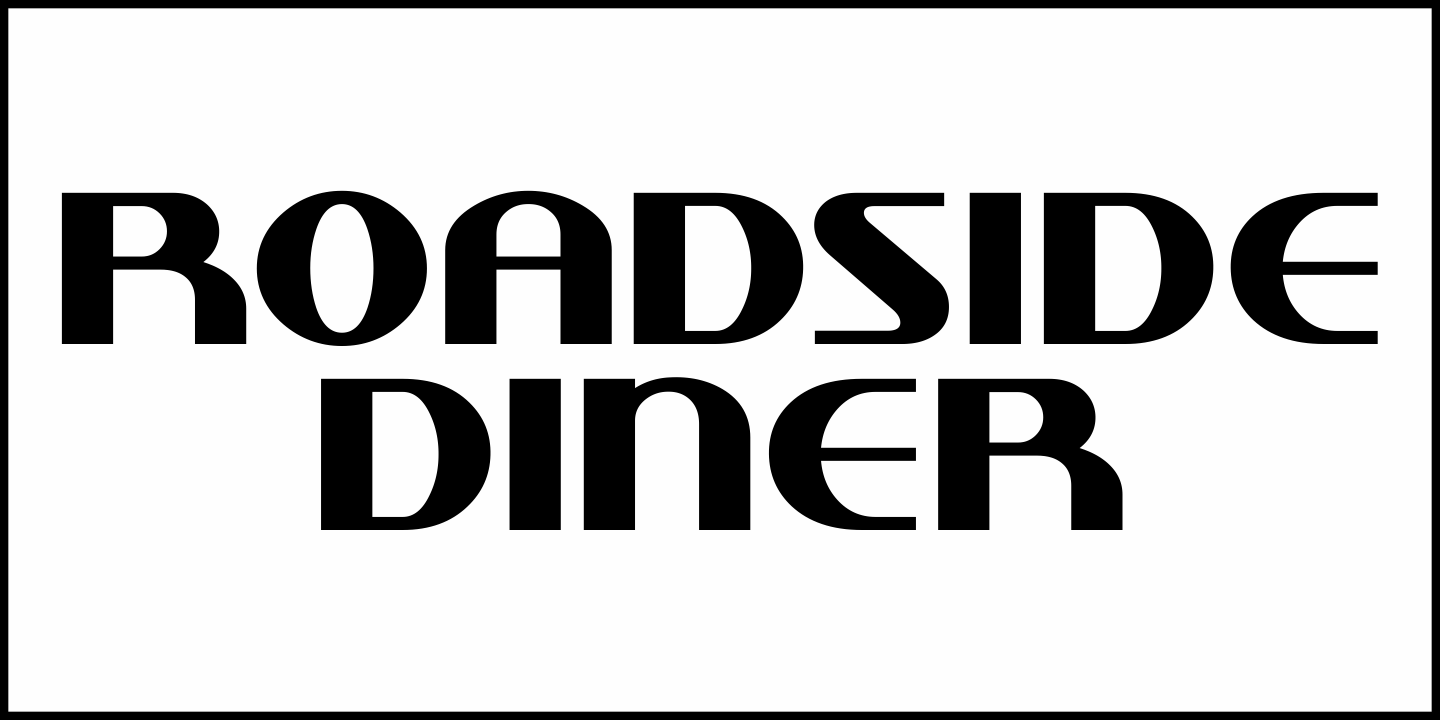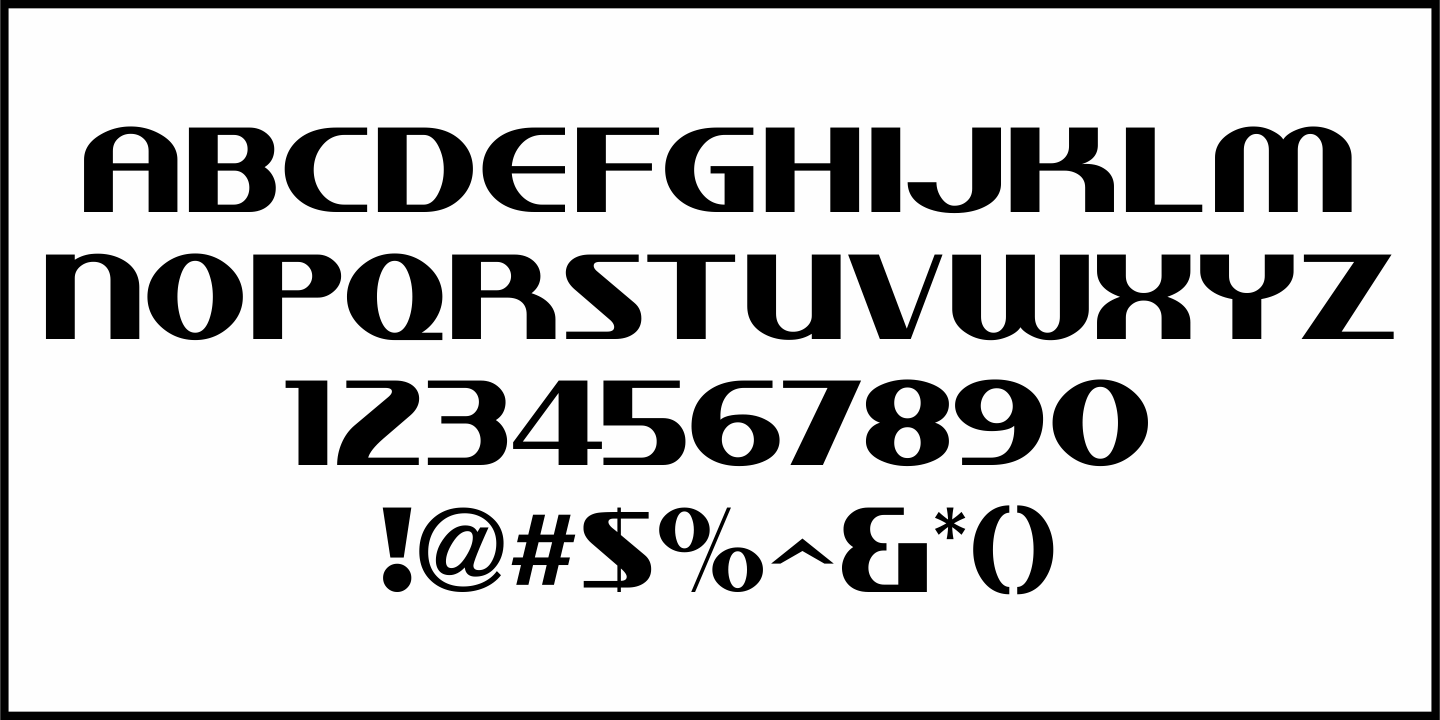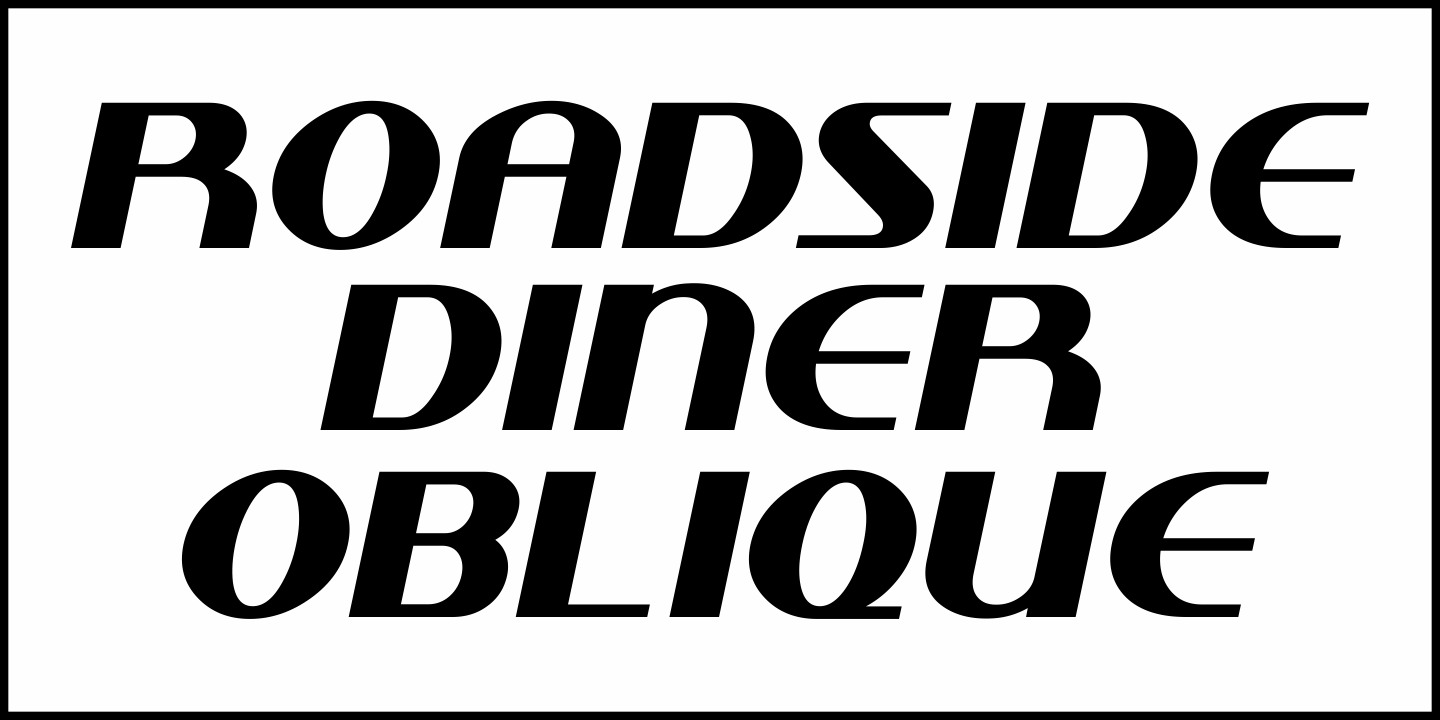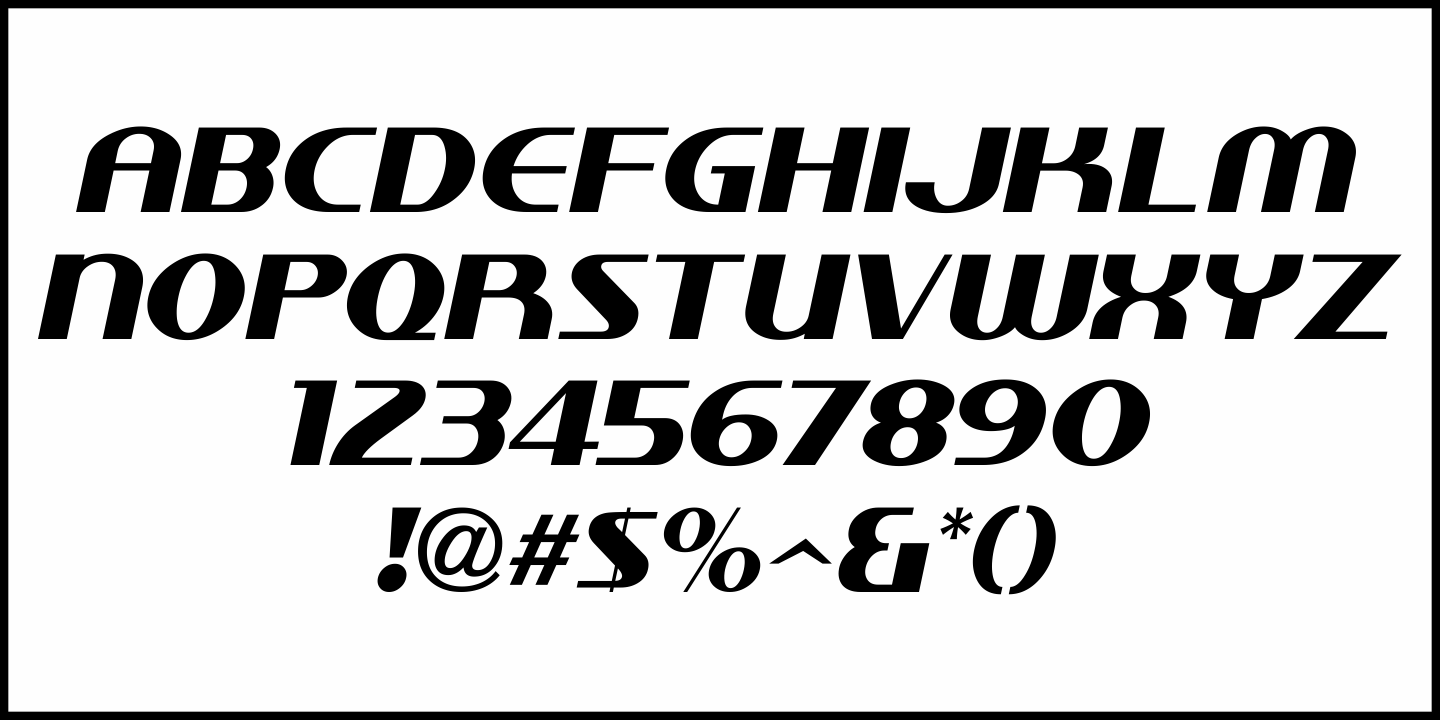
Roadside Diner
The hand painted signage from a 1950s era photo of the Miami Diner Restaurant in Miami, Florida inspired the digital version of its 1940s-influenced lettering.
Roadside Diner JNL is available in both regular and oblique versions.